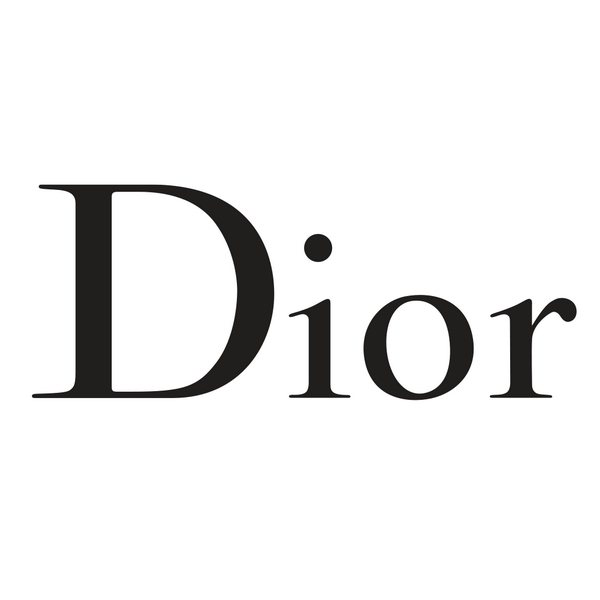
Dior Font
ApparelChristian Dior SE (known as "Dior") is a French luxury fashion brand founded in 1946 by Christian Dior. The brand is known for its high-end clothing, accessories, and fragrances, as well as its iconic couture dresses and suits.
Dior logotype most likely uses Nicolas Cochin Regular designed by Georges Peignot. The typeface was inspired by the copperplate engravings of 18th-century French artist Charles-Nicolas Cochin. If you are looking for a free for personal use version try OPTI Naval by Castcraft Software.